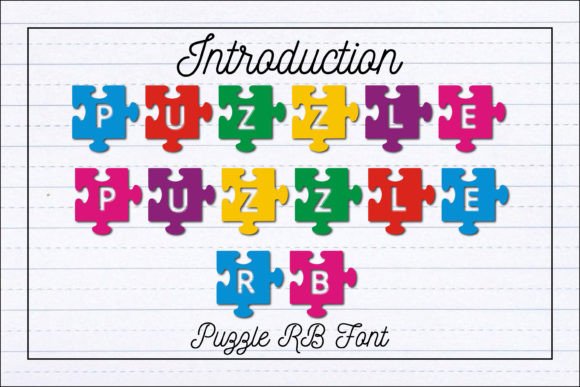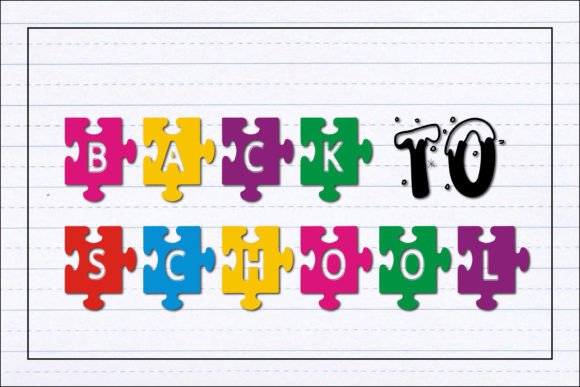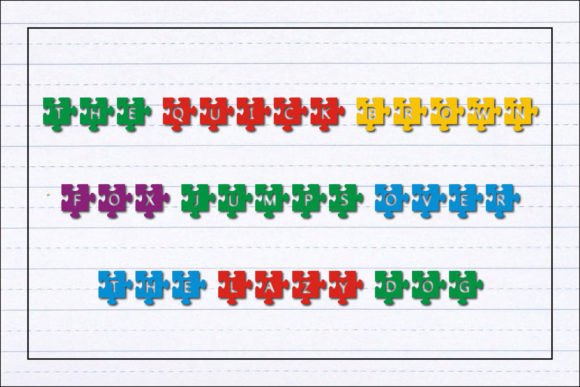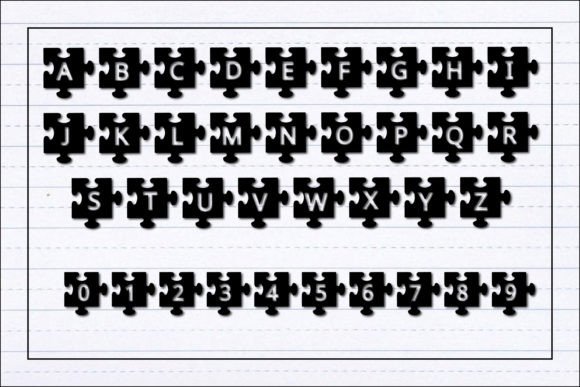
Puzzle Font: A Playful Display Font for Eye-Catching Branding
About the Puzzle Font
Meet Puzzle Font, a stunning font that brings a touch of elegance and professionalism to any design. Introducing a vibrant splash to your creative projects, our font embodies joy and whimsy that is bound to elevate your design endeavors. An absolute fit for branding initiatives, packaging designs, riveting logotypes, and gripping headlines, it also adds a sprinkle of charm to wedding invitations and similar creatives. Embrace and experience the transformative power of this uplifting font in your designs.
Puzzle Font’s playful, slightly quirky personality makes it ideal for projects needing a fun, approachable feel. It excels in headlines, short text blocks, and logos where its distinctive forms create visual interest. However, its less-than-optimal x-height makes it unsuitable for extended body text or UI elements where readability is paramount.
Consider pairing Puzzle Font with a clean sans-serif like Open Sans for a balanced contrast, or a more geometric sans-serif such as Futura for a modern, sophisticated feel. For a softer touch, a delicate script font could add elegance without overwhelming Puzzle Font’s unique character. Avoid pairing it with other highly decorative or overly whimsical fonts to prevent visual clutter.
The font’s overall energy is best suited to brands targeting younger demographics or projects with a lighthearted, creative spirit. Think children’s books, playful product packaging, or social media campaigns emphasizing fun and engagement.
Puzzle Font Usage Examples
Puzzle Font Example